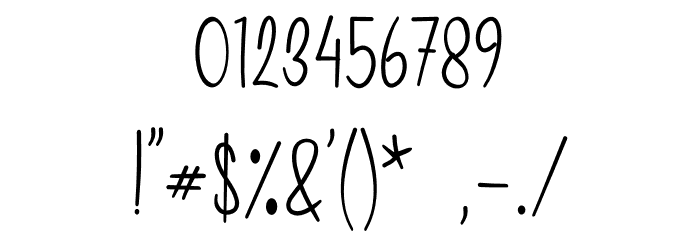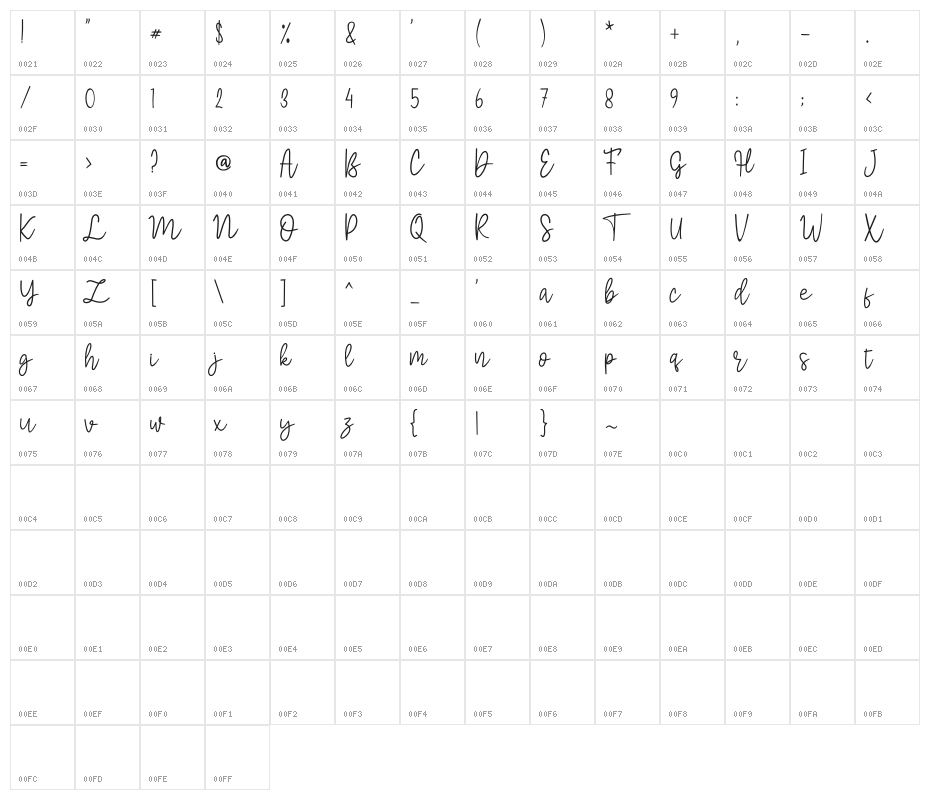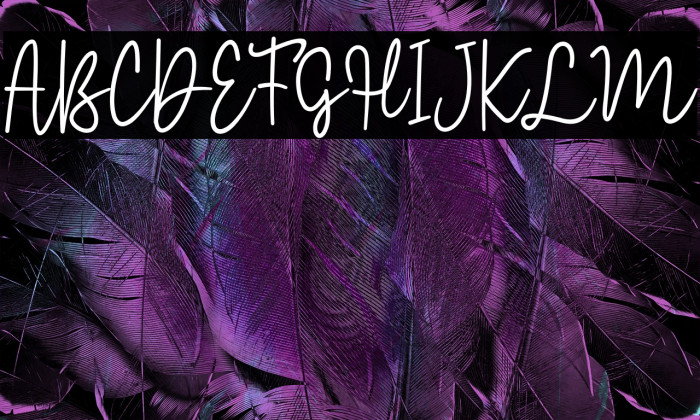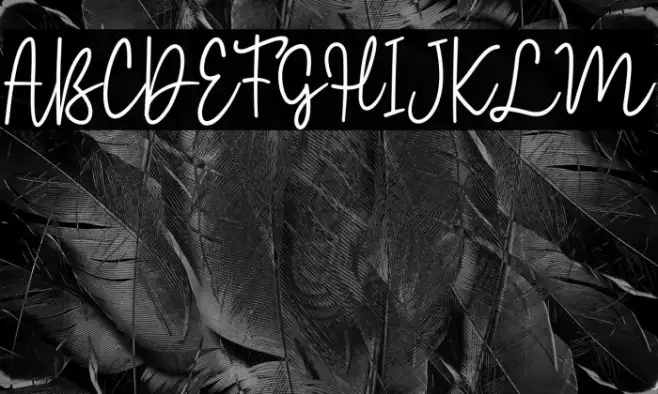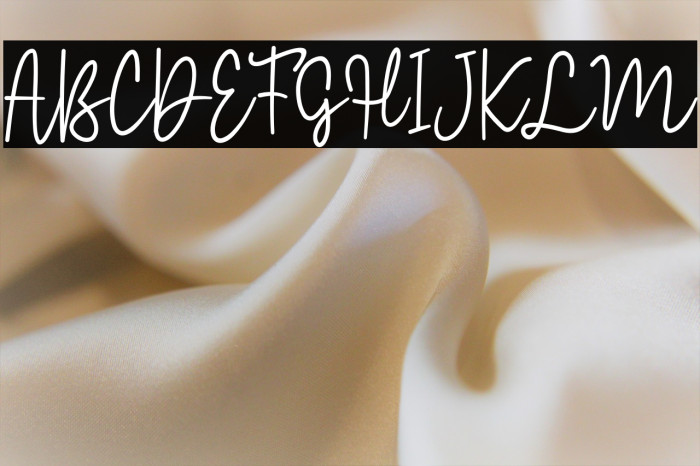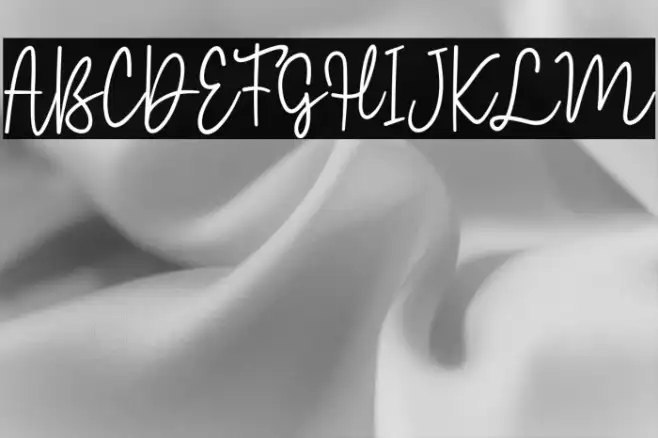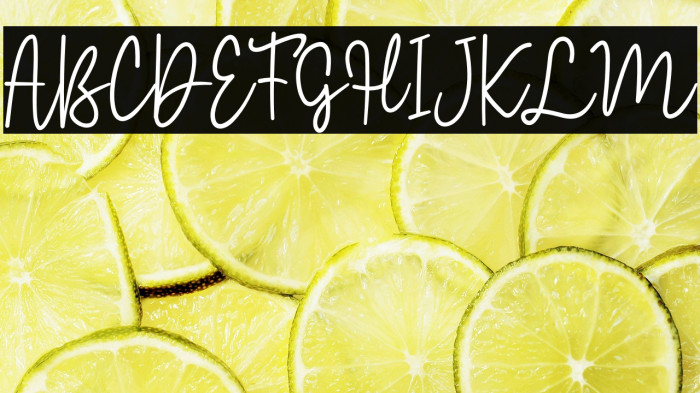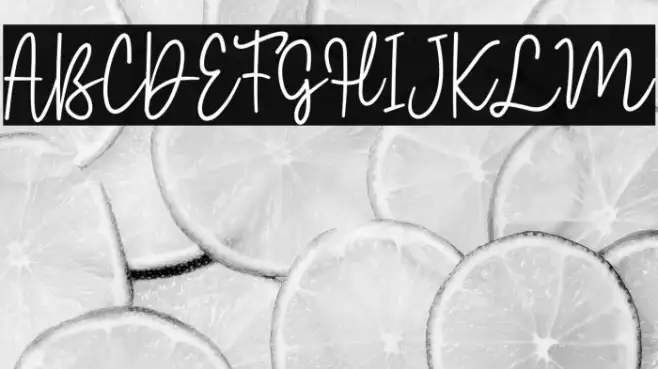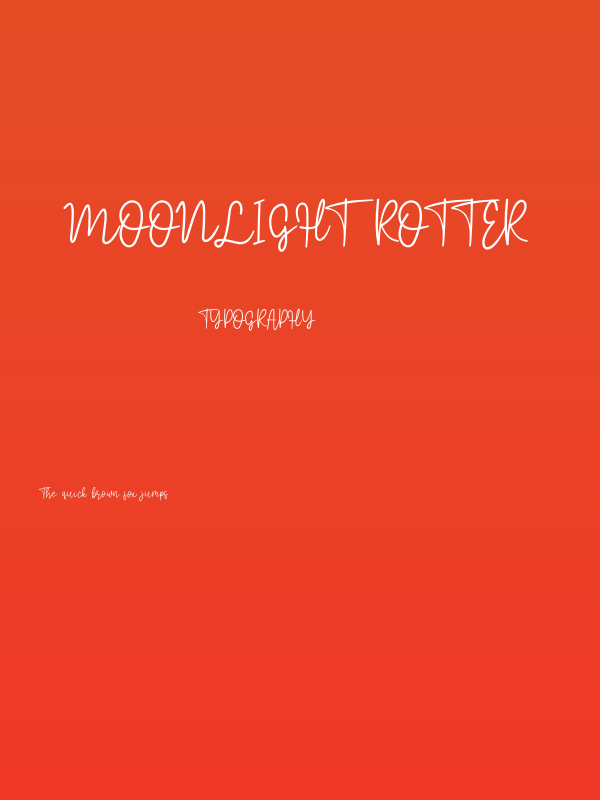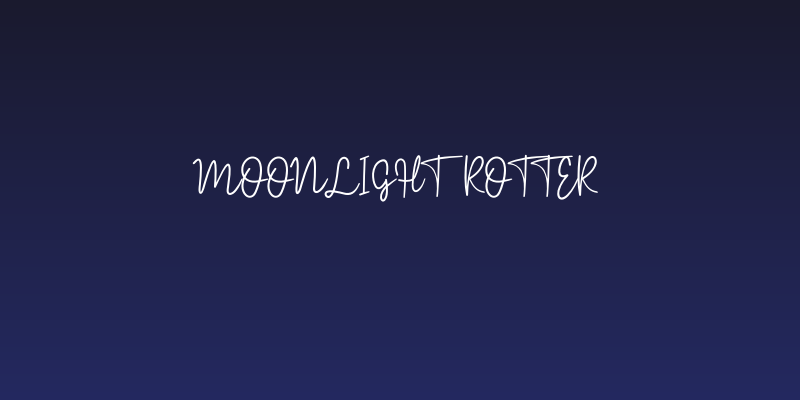
Moonlight Rotter Font
Moonlight Rotter Description
This font features a playful and elegant handwritten style, characterized by smooth, flowing lines and a casual yet sophisticated appearance. The uppercase letters are tall and slightly narrow, with a consistent stroke width that adds to its readability. Lowercase letters maintain a cohesive look with gentle curves and loops, giving the font a friendly and approachable feel. The numerals are clear and distinct, matching the overall style of the alphabet. Special characters are well-integrated, ensuring versatility in various design contexts. This font is perfect for projects that require a personal touch, such as invitations, greeting cards, or branding materials.